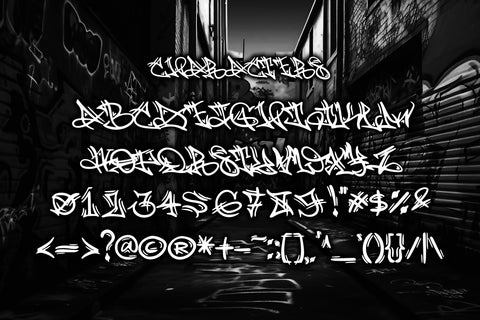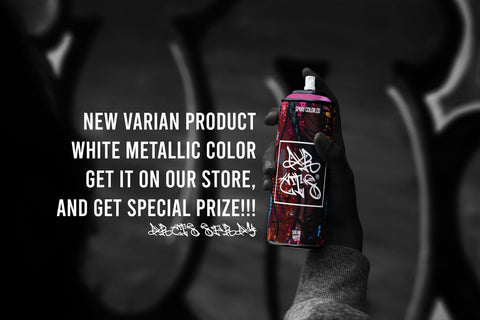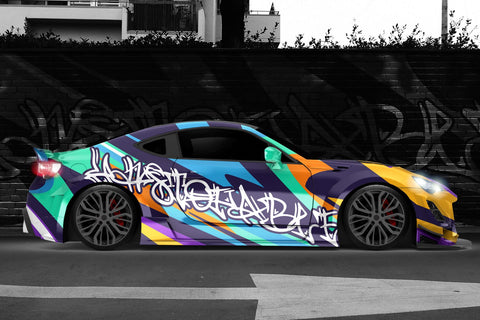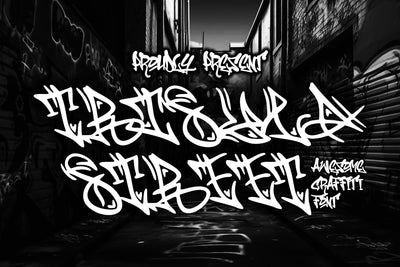
Trisula Street - Sharpen Monoline Graffiti Font
“Trisula Street” sounds like an intriguing font choice for graffiti-inspired designs. Monoline graffiti fonts often feature a balanced and flowing style that adds an artistic and urban touch to various projects. Given its complexity, it can be particularly suitable for streetwear designs, car decals, product packaging, and more.
- Graffiti Characters looks